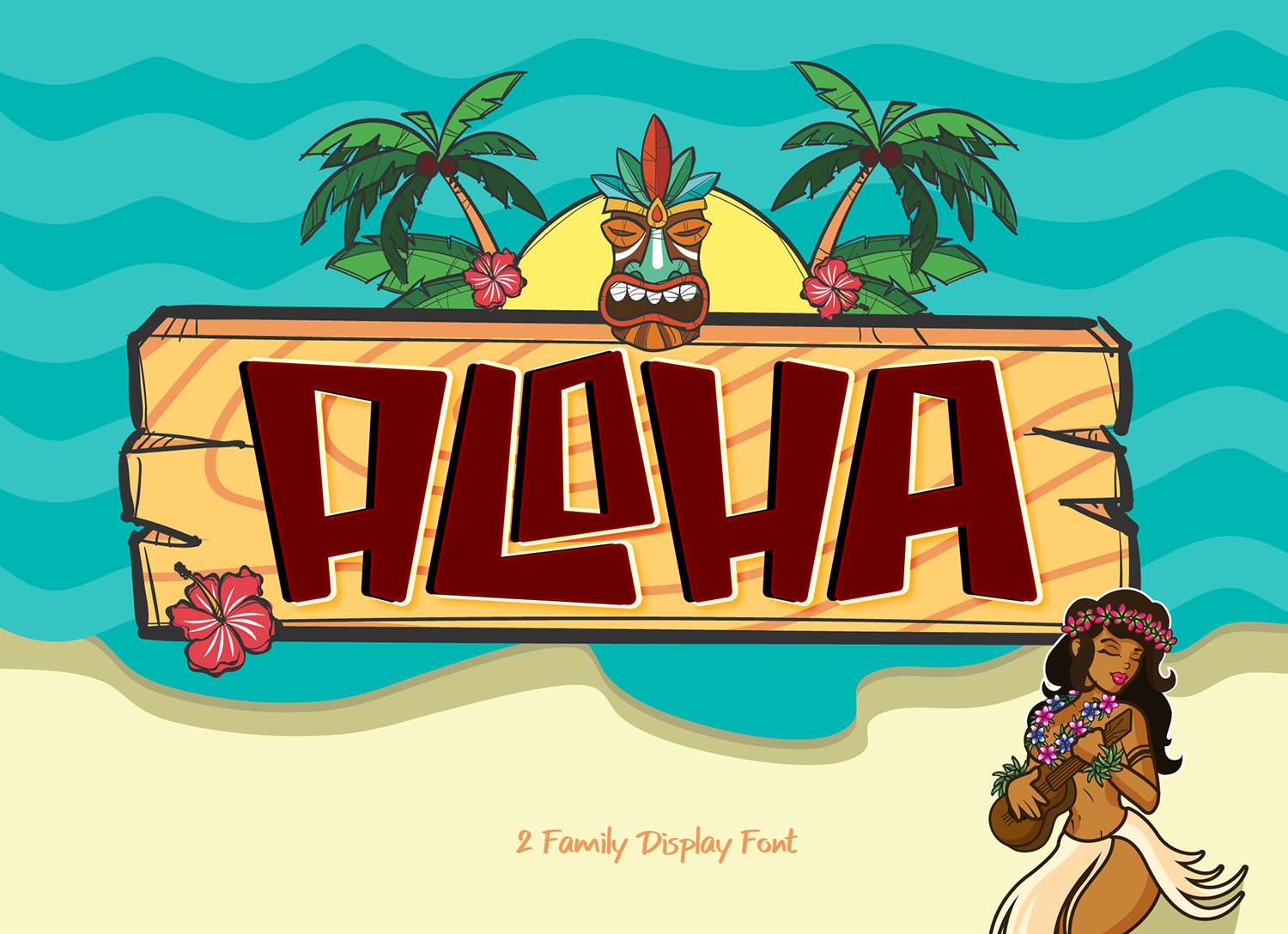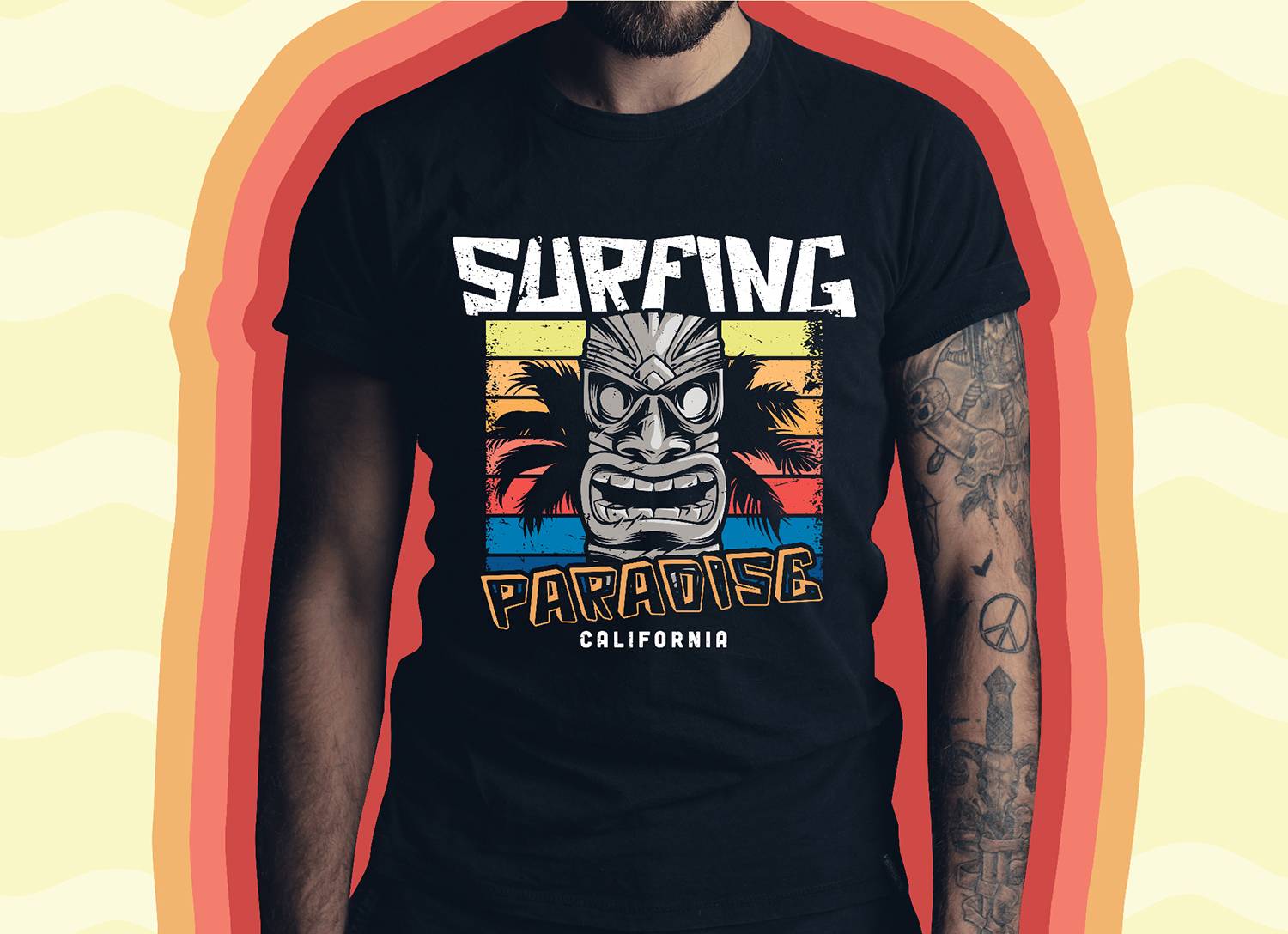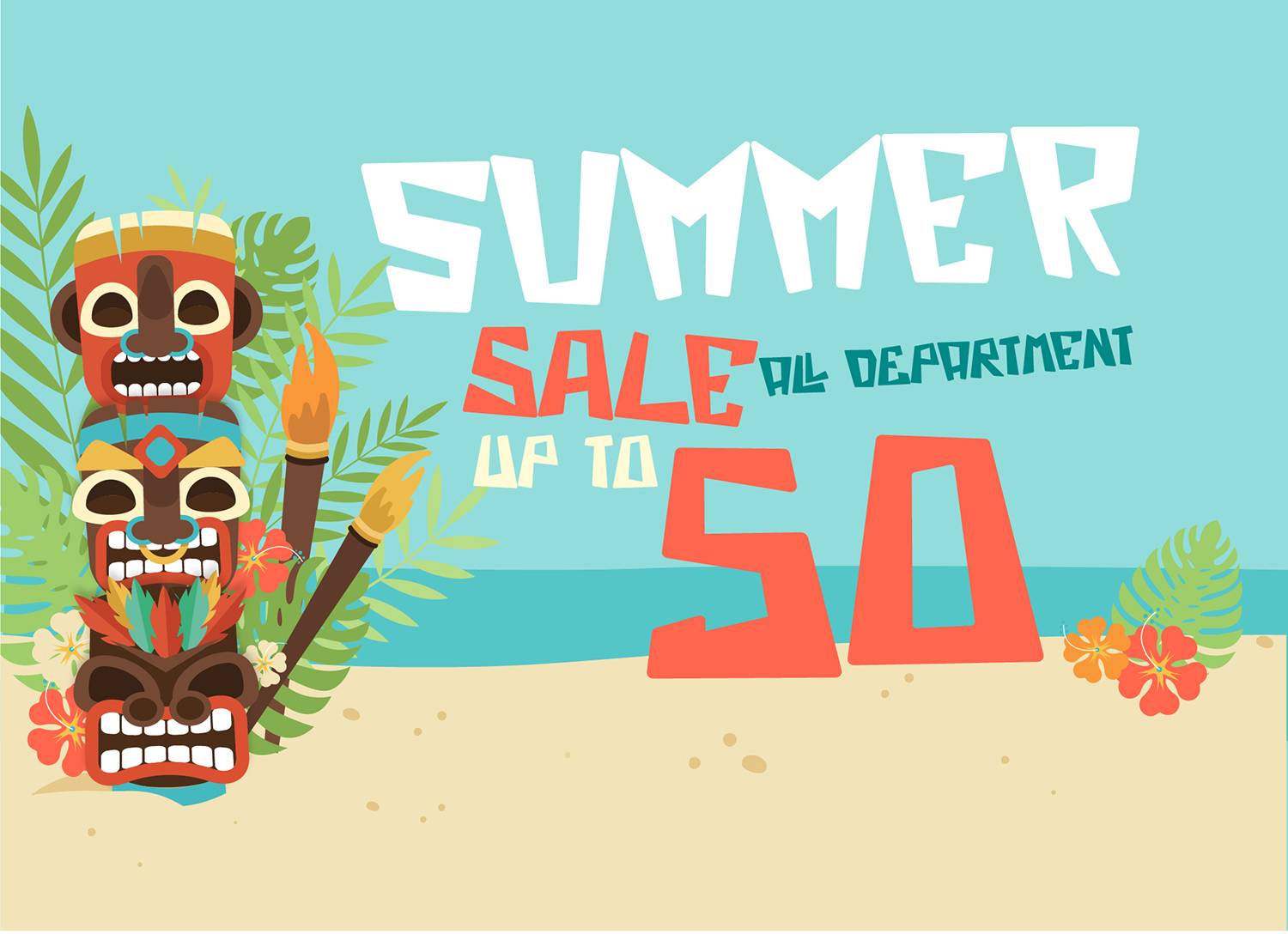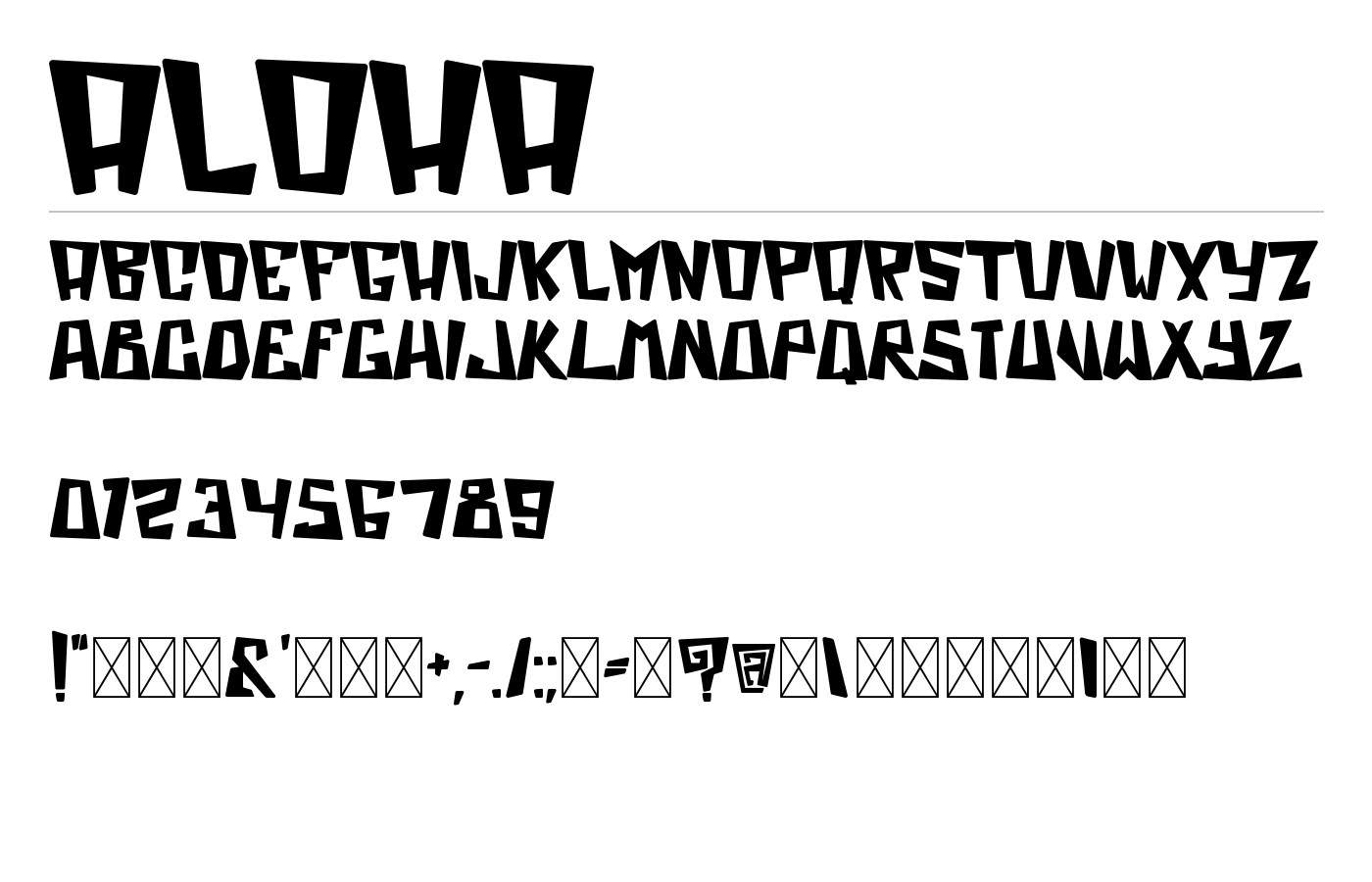
Aloha is a bold, playful sans serif font featuring quirky, irregular shapes with a hand-crafted feel that brings energy and uniqueness to any design. Its slightly condensed letterforms with uneven angles create a casual, fun vibe perfect for informal branding, posters, and creative headlines where personality and impact matter most. This font stands out in youthful, lively contexts, adding a dynamic, approachable style.
Aloha Font
About Aloha Font
| Font family | Aloha Font |
| Designer | BazzTheBigman |